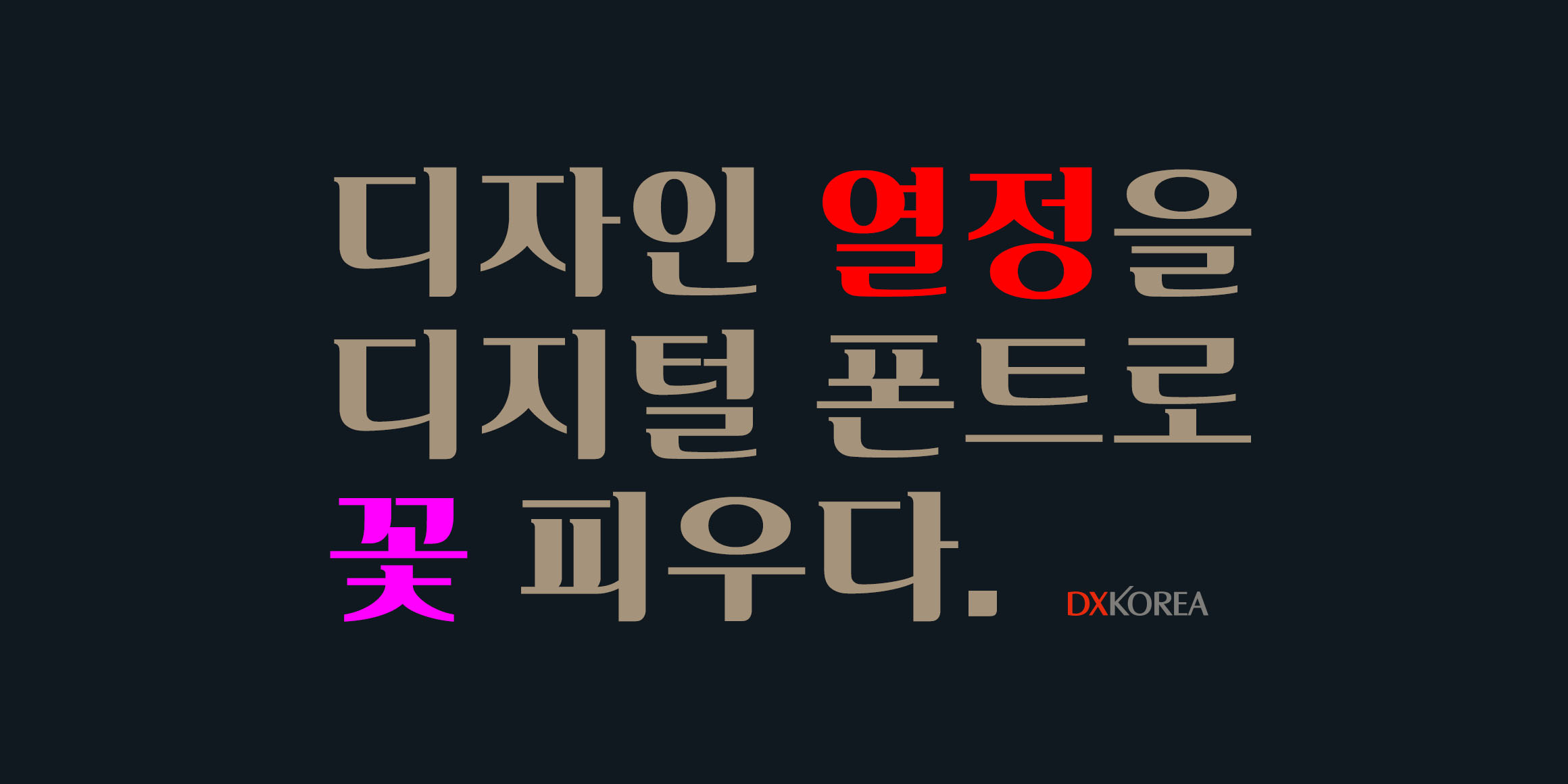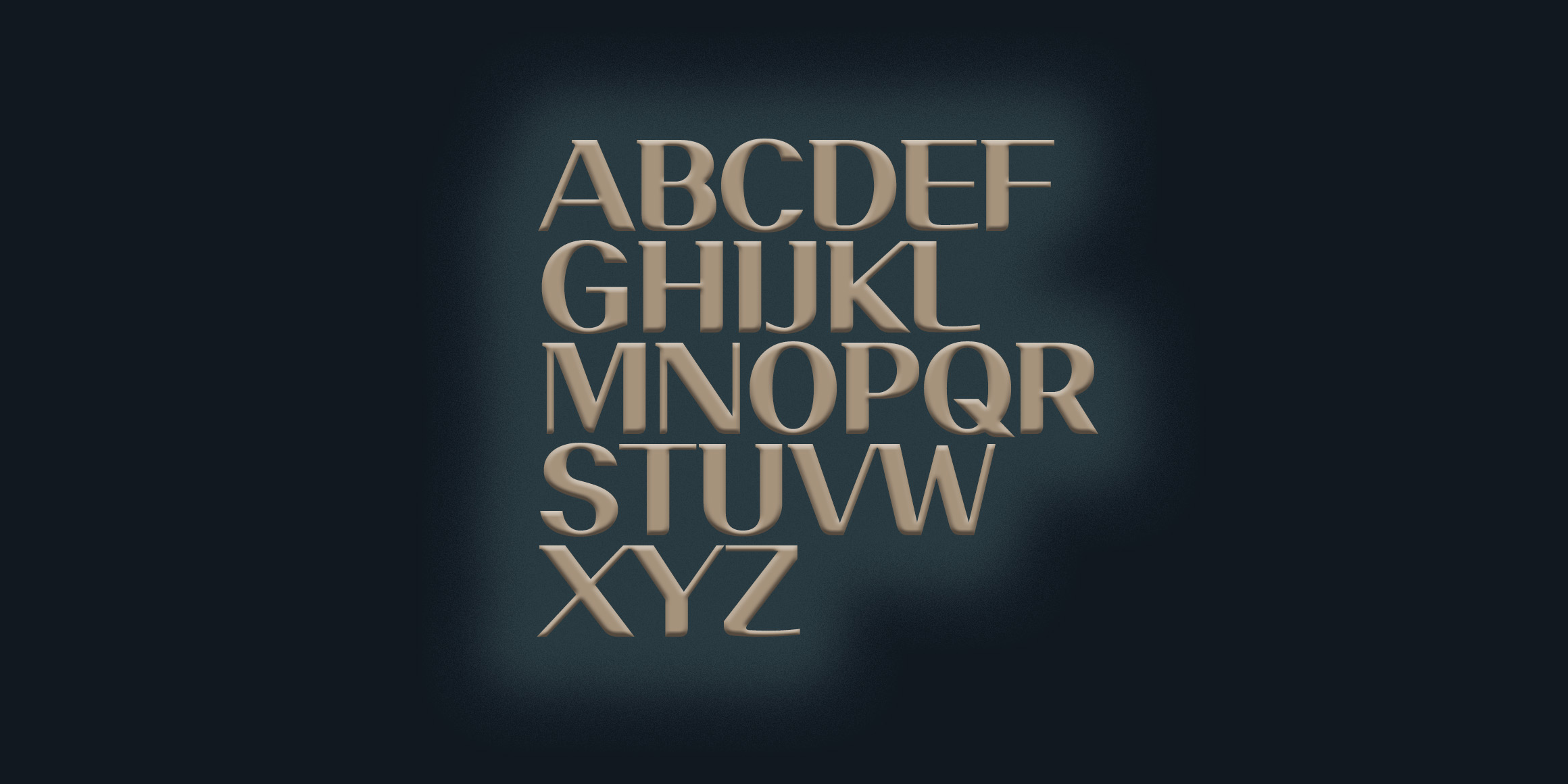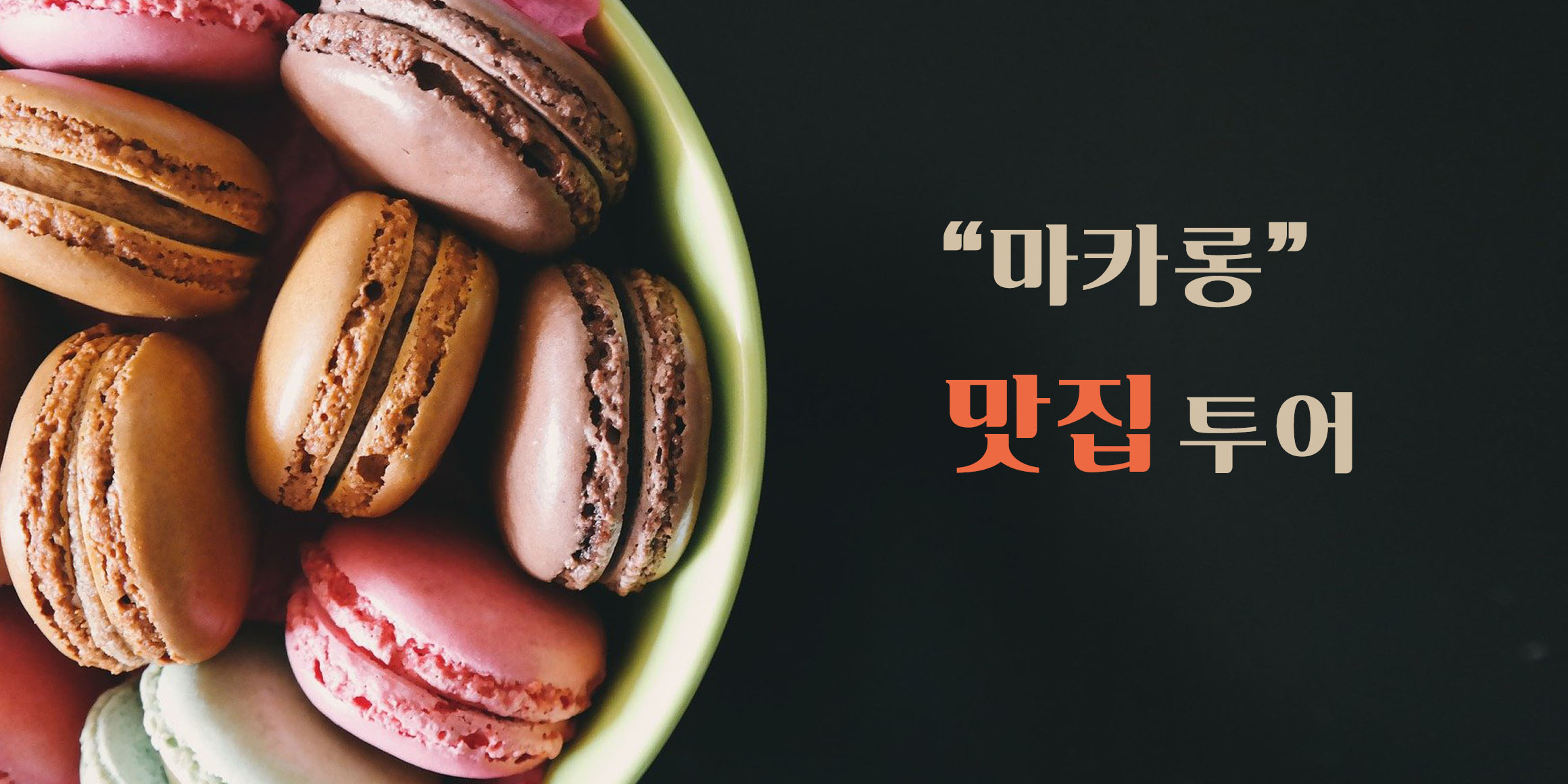
The font was inspired by Andante, an Italian musical term meaning to perform slowly. The contrast is reminiscent of Bodoni, and the Serif shapes accentuate an elegance and femininity in the stiff Gothic.
- 2016
- Choi sungwoo
- Display,Serif
- Sandoll 안단테 / Sandoll Andante
- Title,Print,Lyrical